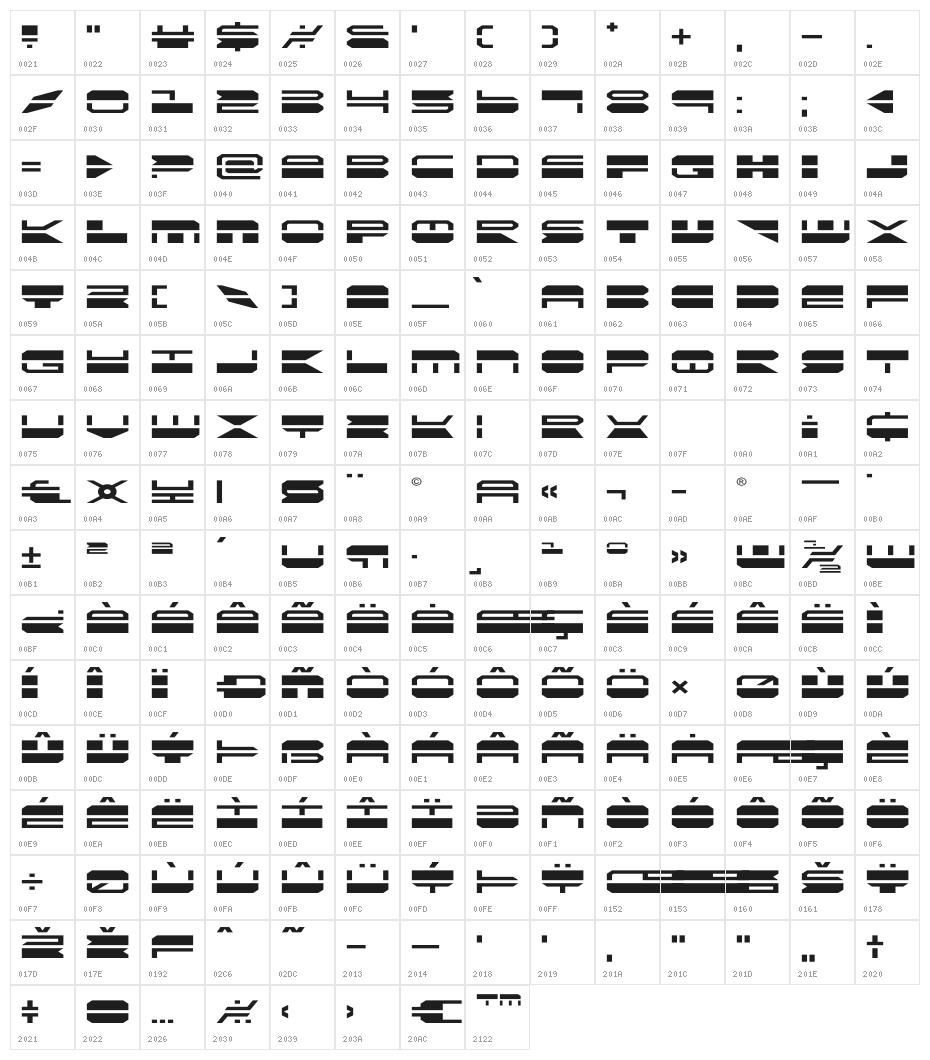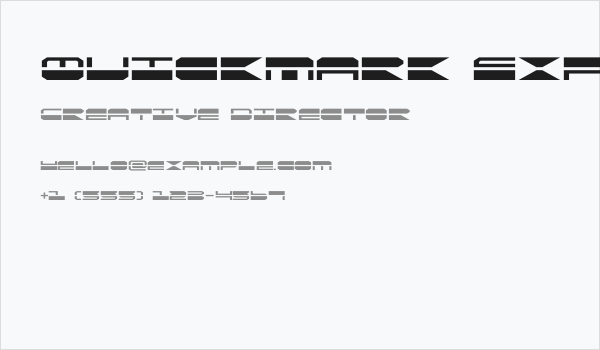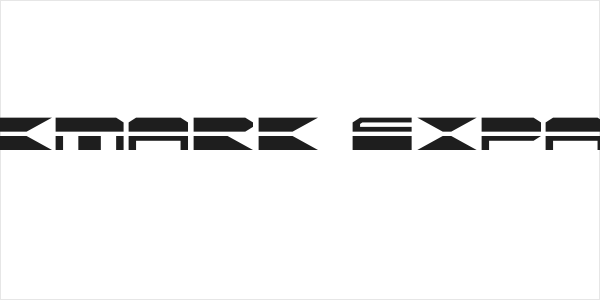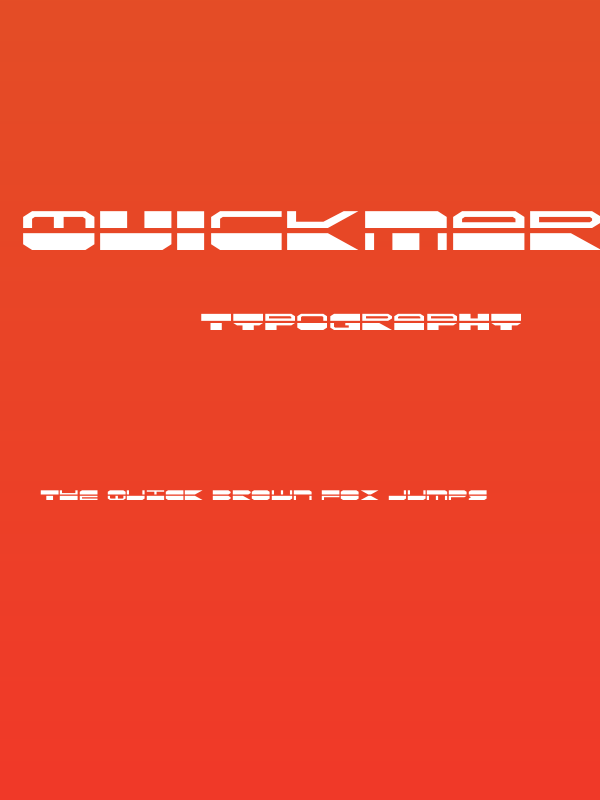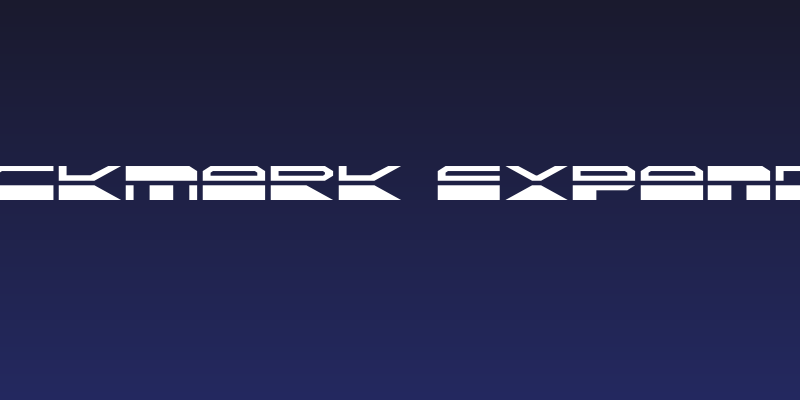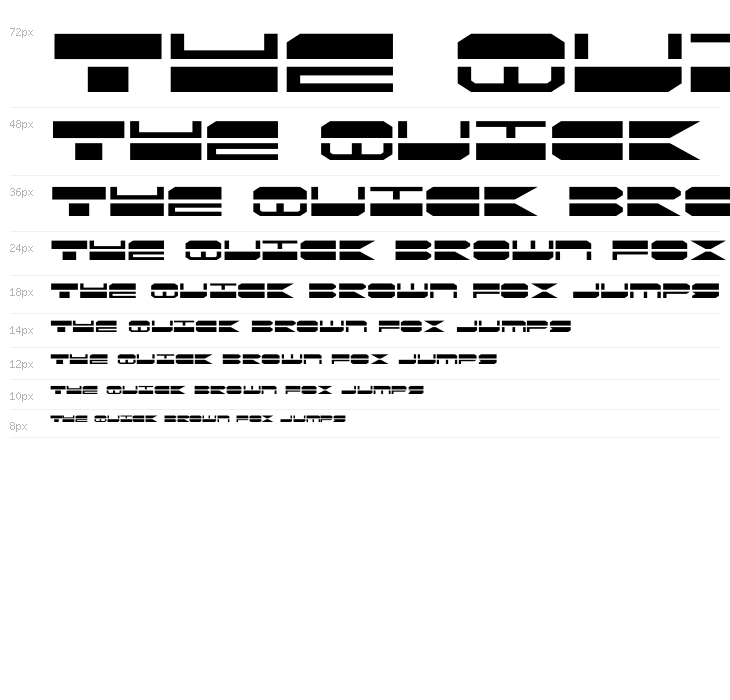
QuickMark Expanded Font
QuickMark Expanded Description
This font features a bold, futuristic design with a distinctly geometric and angular appearance. The characters are constructed with thick, solid lines and sharp edges, giving them a strong, impactful presence. The uppercase and lowercase letters share a consistent style, with the lowercase being slightly more compact. Numbers and special characters maintain the same bold and angular aesthetic, ensuring uniformity across all glyphs. The font's expanded width allows for a striking visual impact, making it ideal for attention-grabbing designs. Its unique style is reminiscent of digital or sci-fi themes, making it suitable for modern and tech-oriented projects.
Use CaseHeadlines, Logos
Proposed ProjectsIdeal for tech-themed designs, sci-fi posters, video game titles, and modern branding.